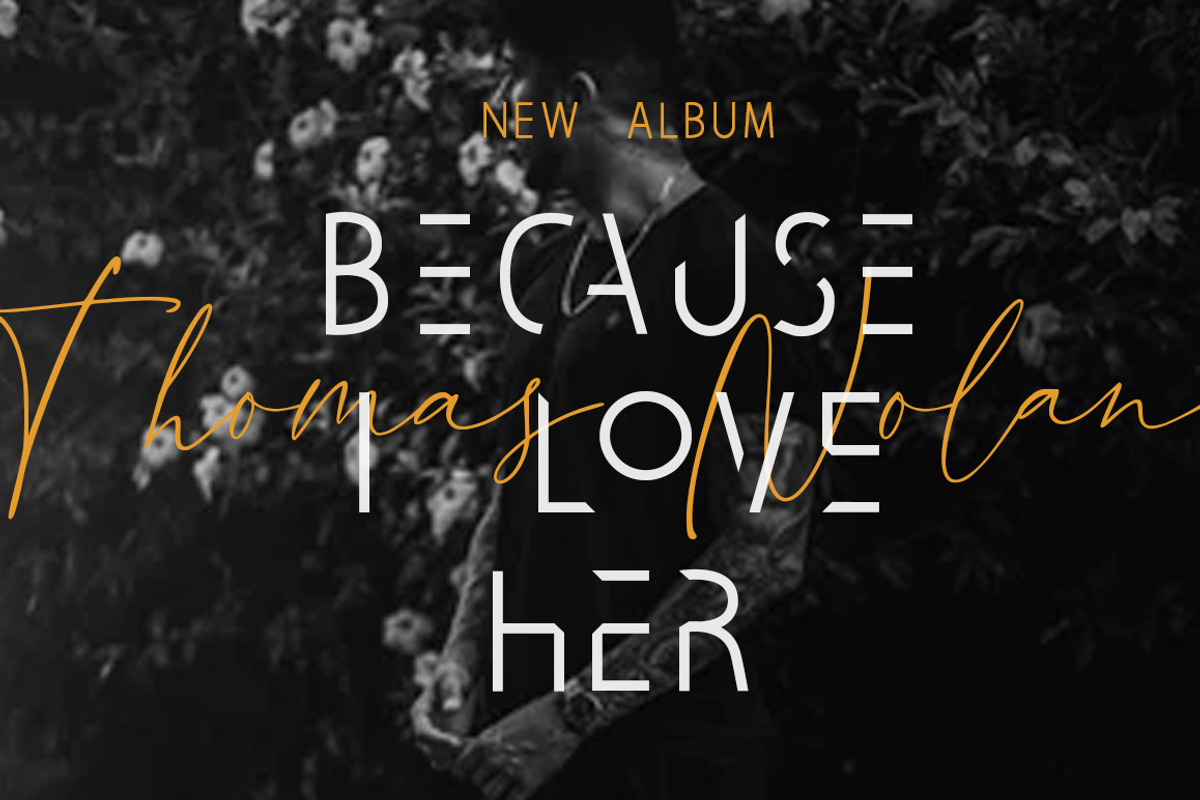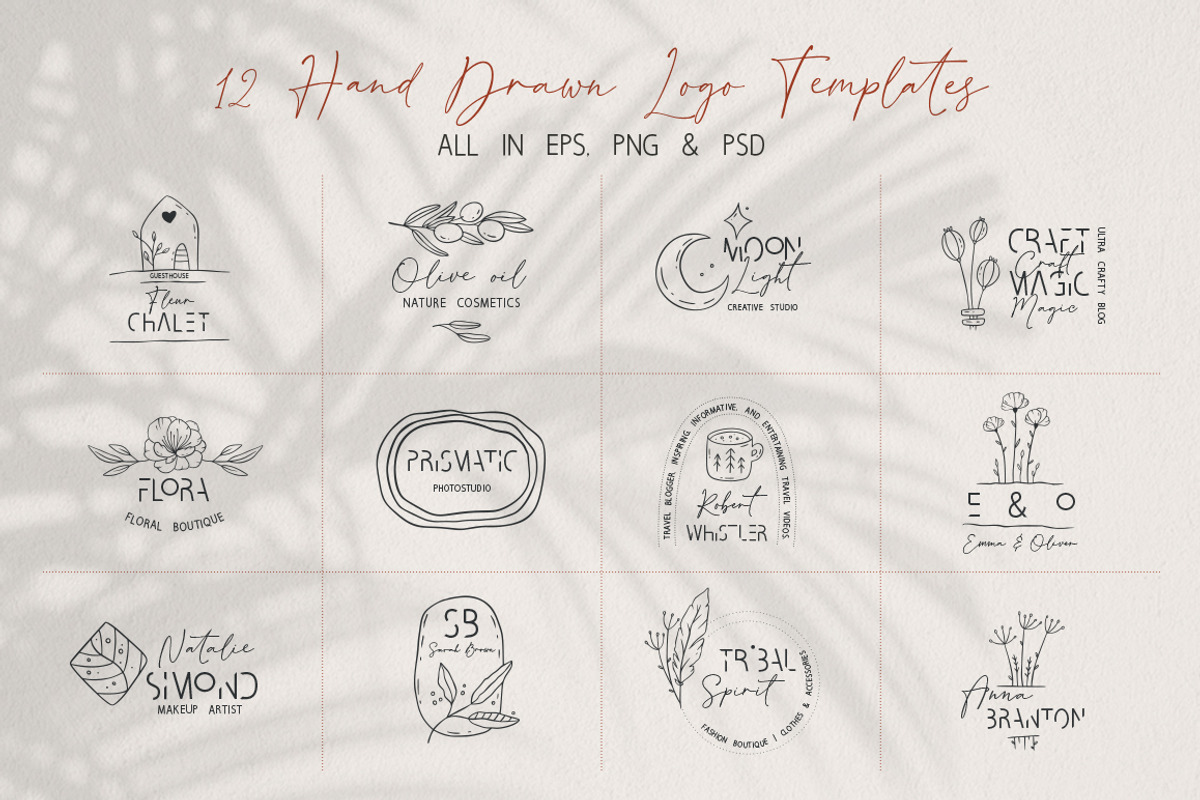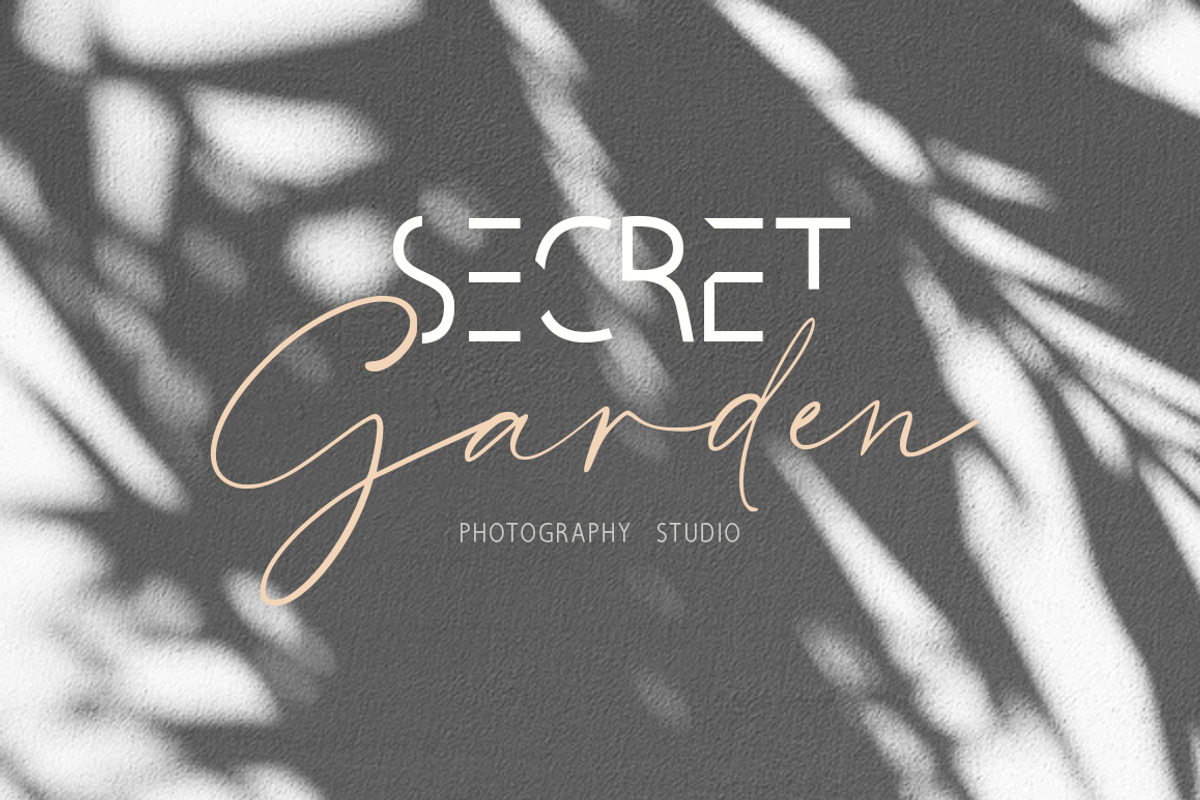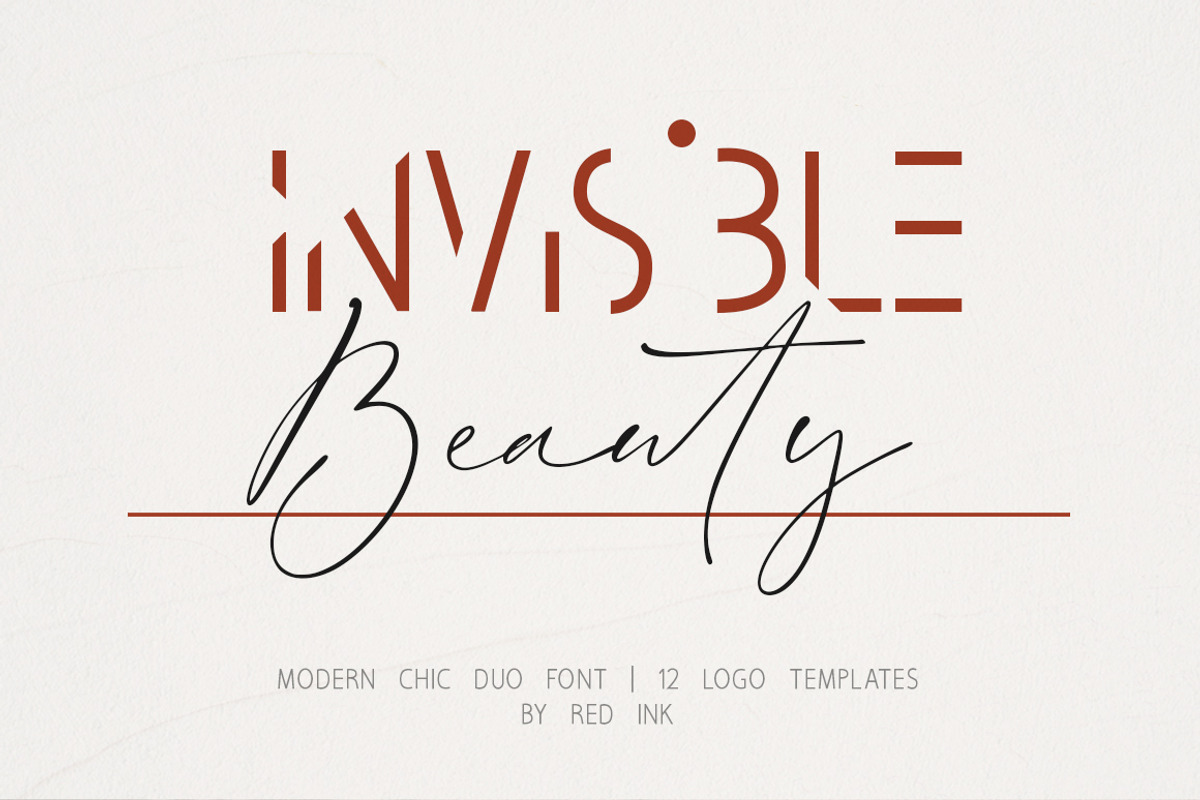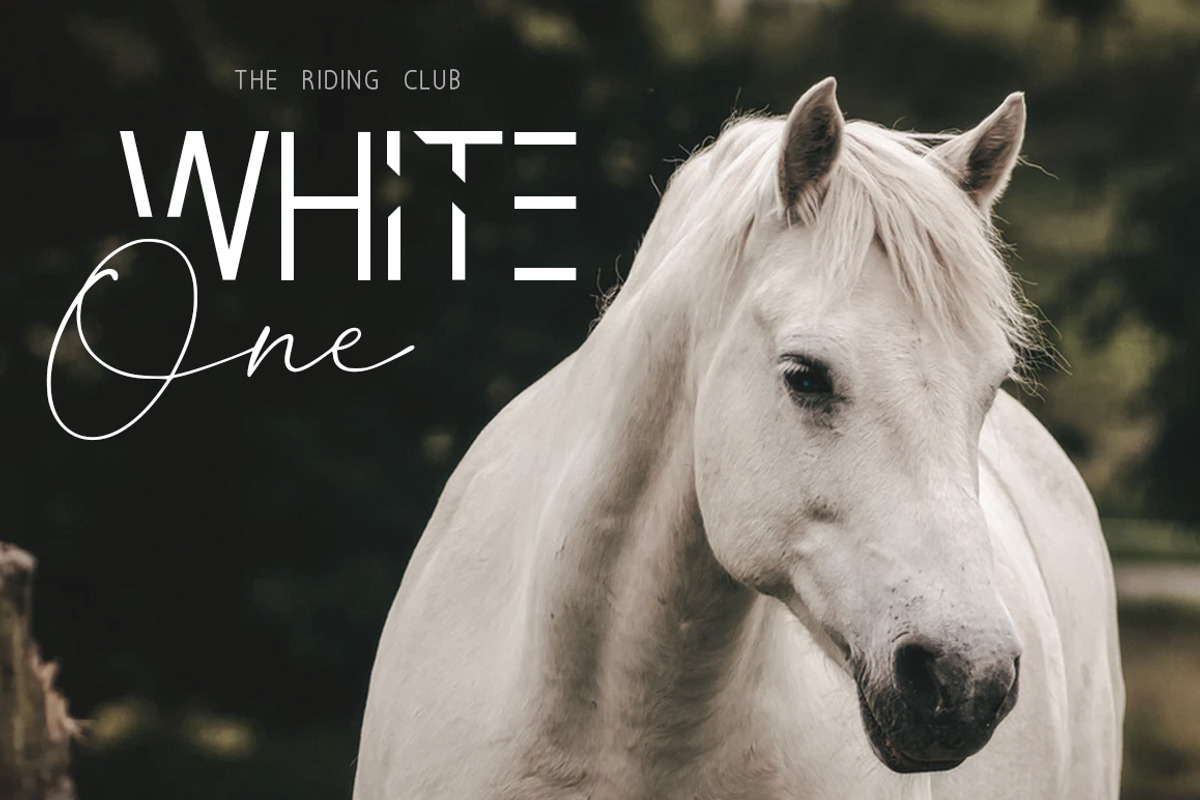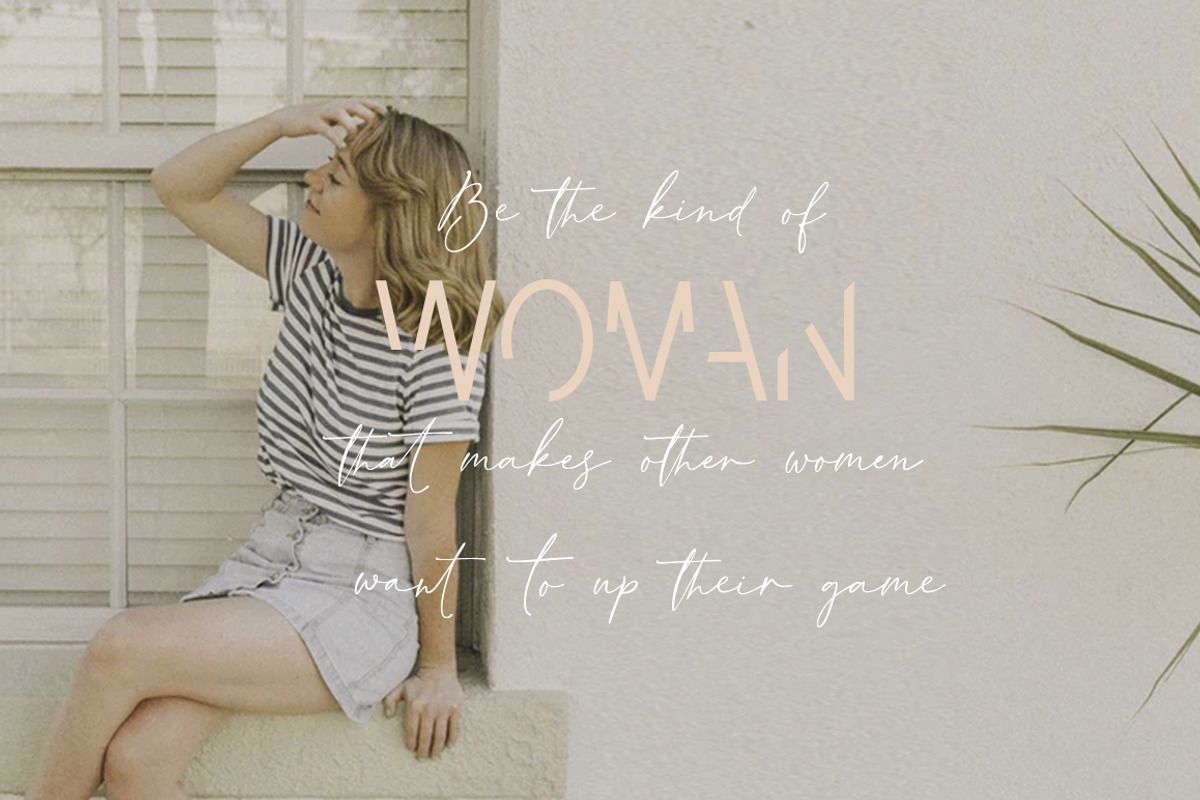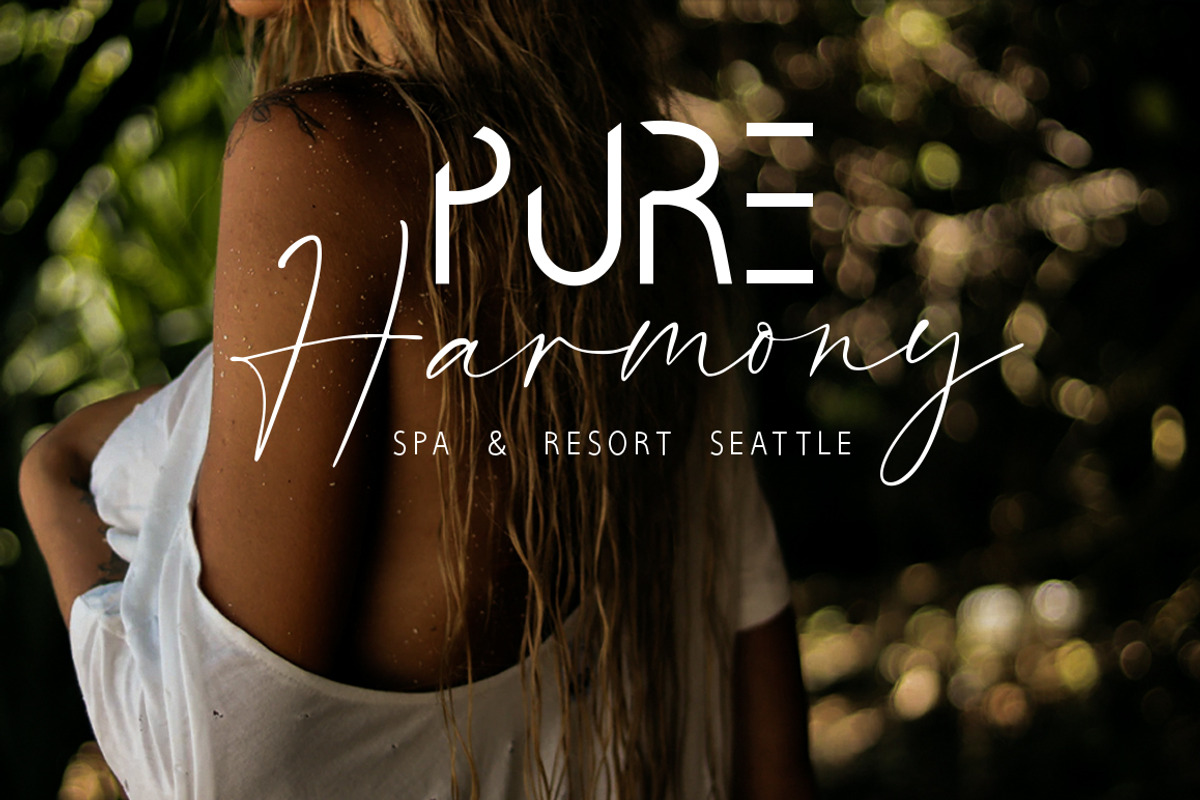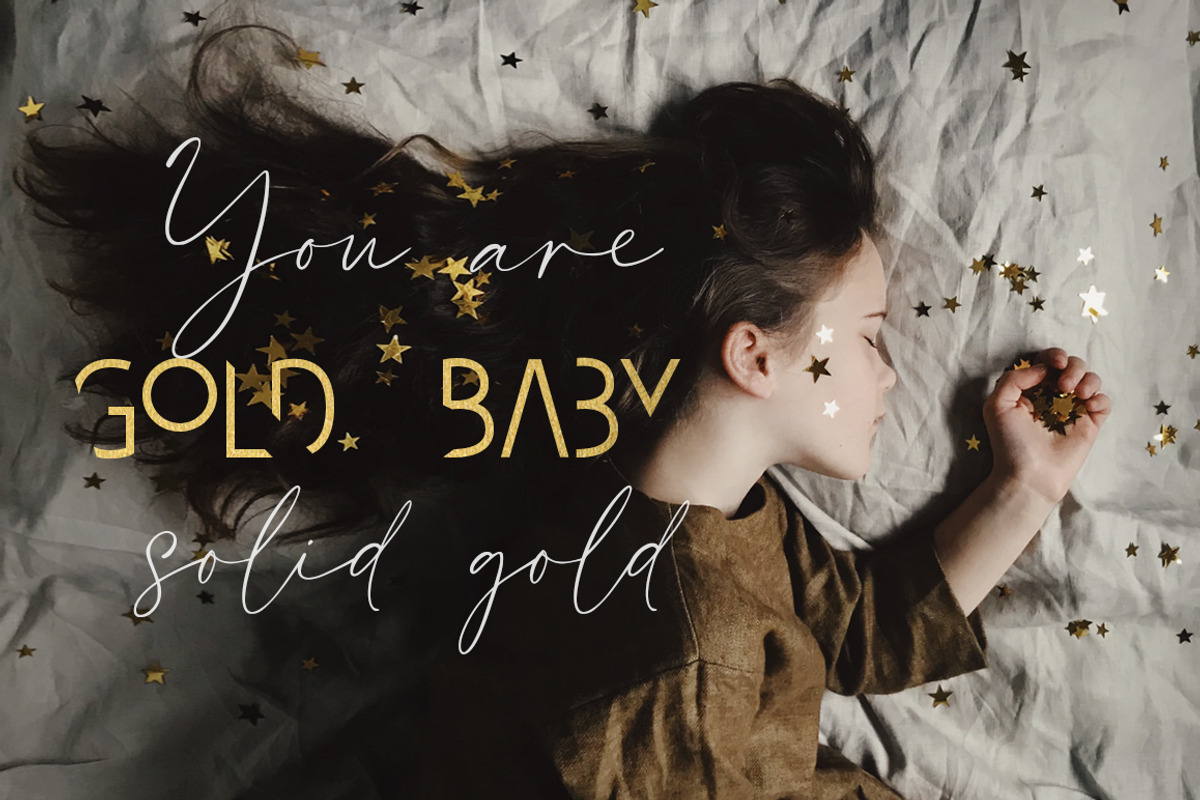
Invisible Beauty. Chic Duo Font.
Invisible Beauty is a beautiful high fashion font duo that makes for gorgeous logos, posters, wedding invitations, blog posts, social media, and more! You will also receive 12 logo templates in different formats. I love using them together with layer masks in Photoshop, so it looks like the script is running through the lines of the serif. Invisible Beauty collection includes 2 fonts. Gorgeous uppercase alternate font & hand drawn font with tons of ligatures.
As for uppercase font, it’s very esy to get alternate letters(just type the number after any uppercase letter 1, 2 or 3) and choose one of three alternates to make your text really unusual.
As for script font, just switch on ligatures in the program, you work with & enjoy the result.